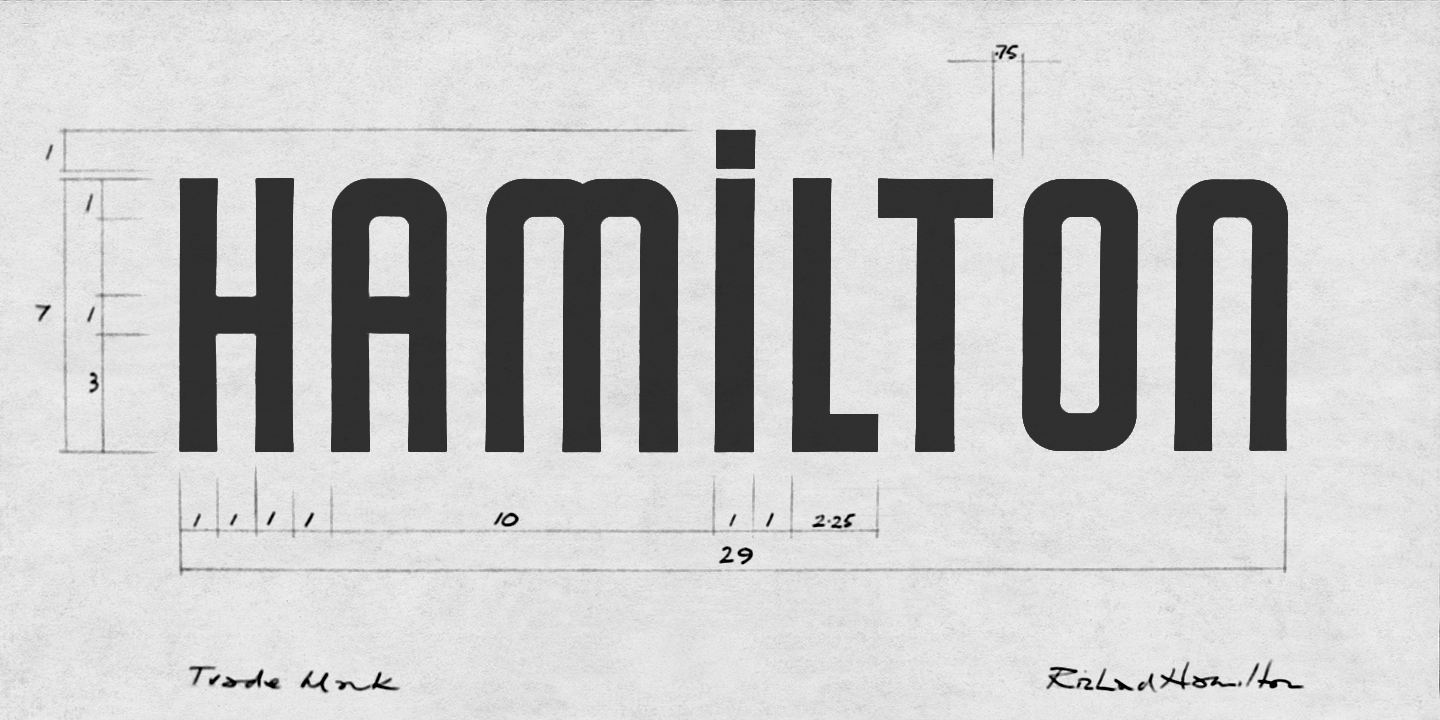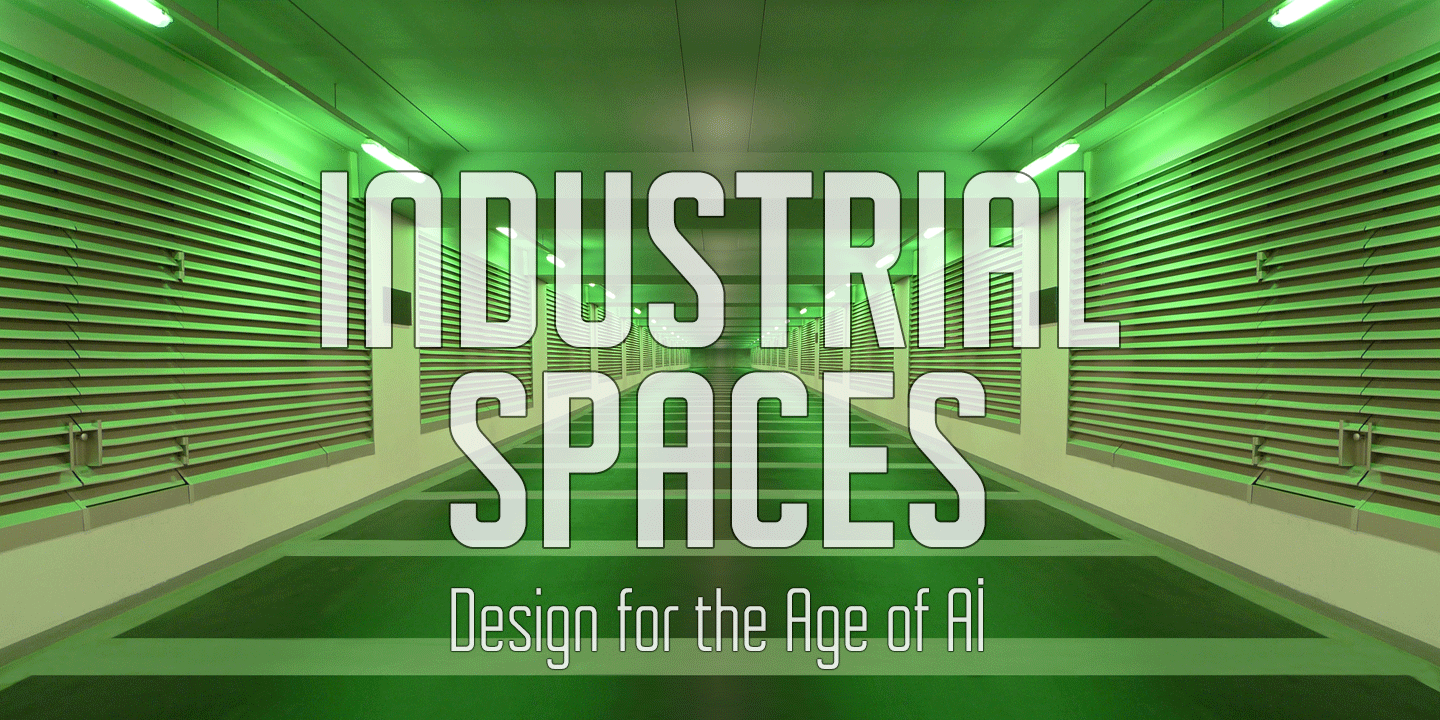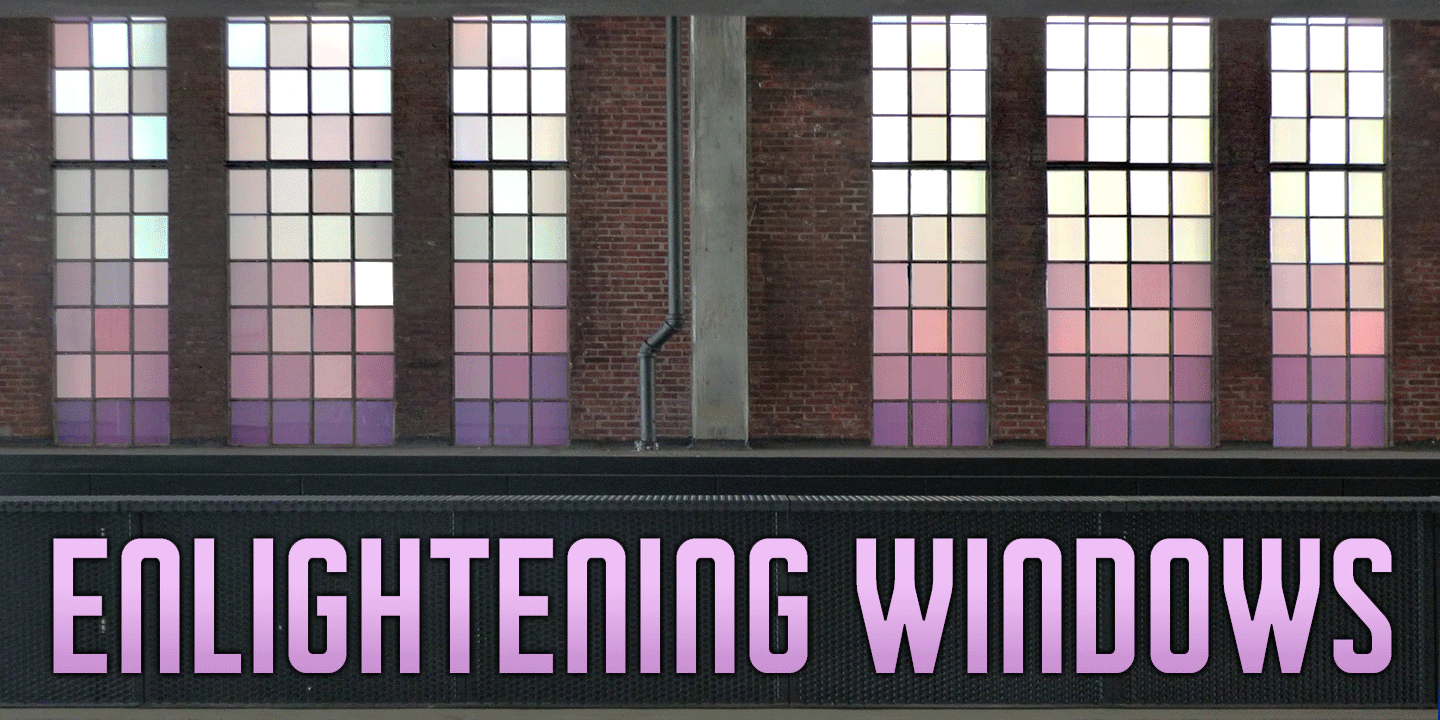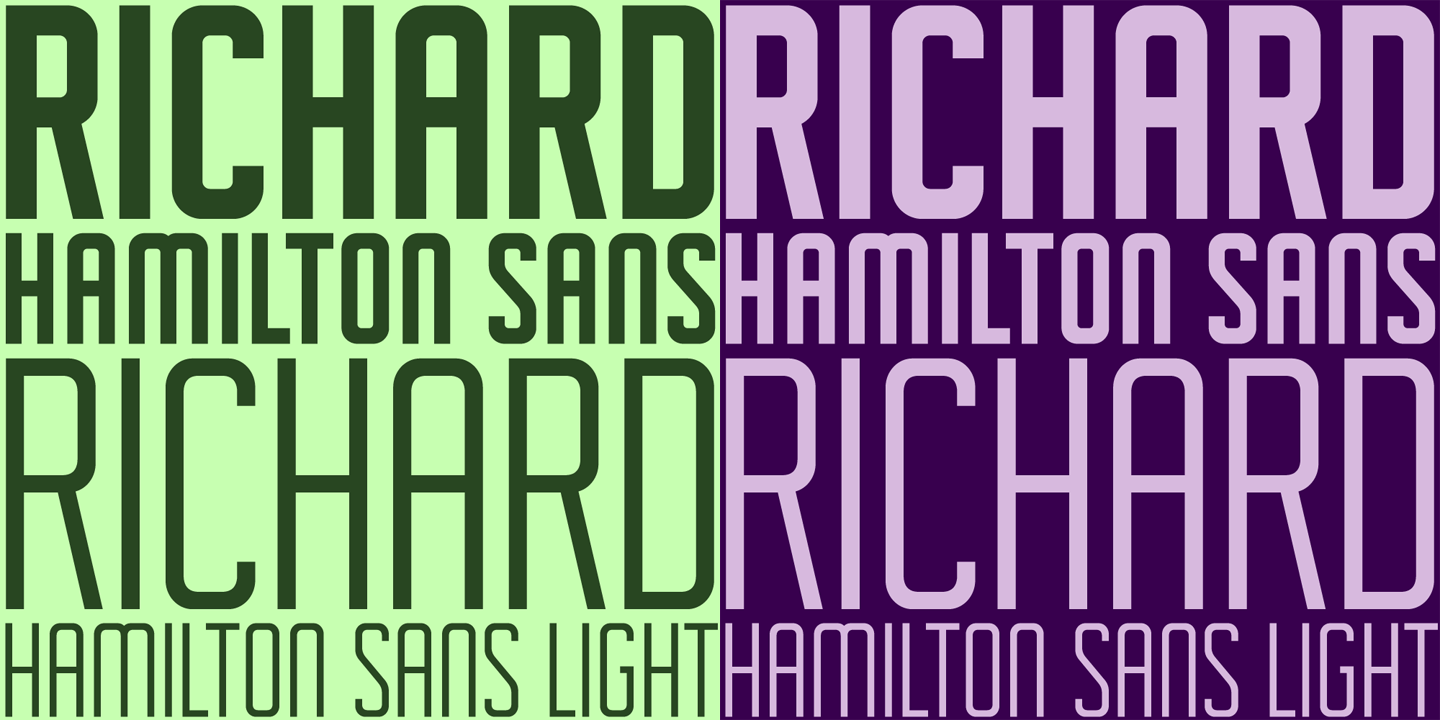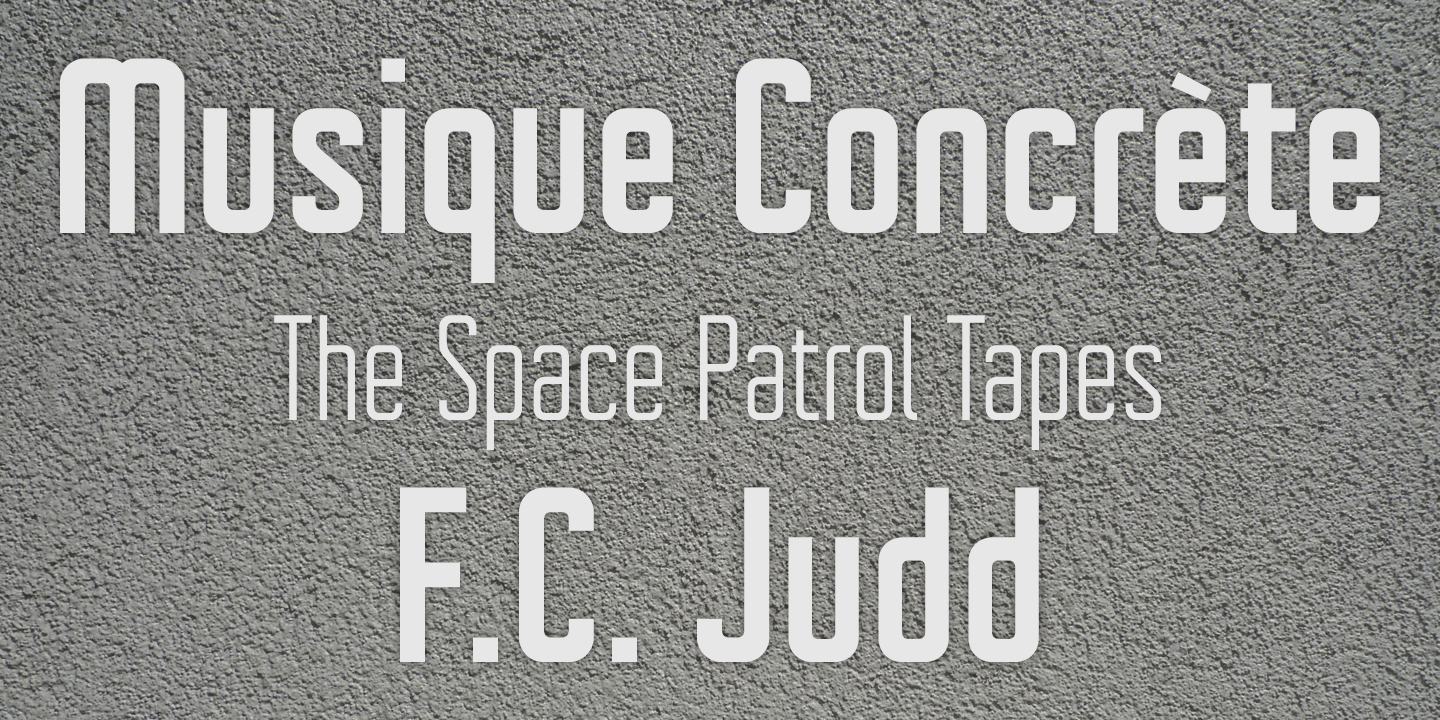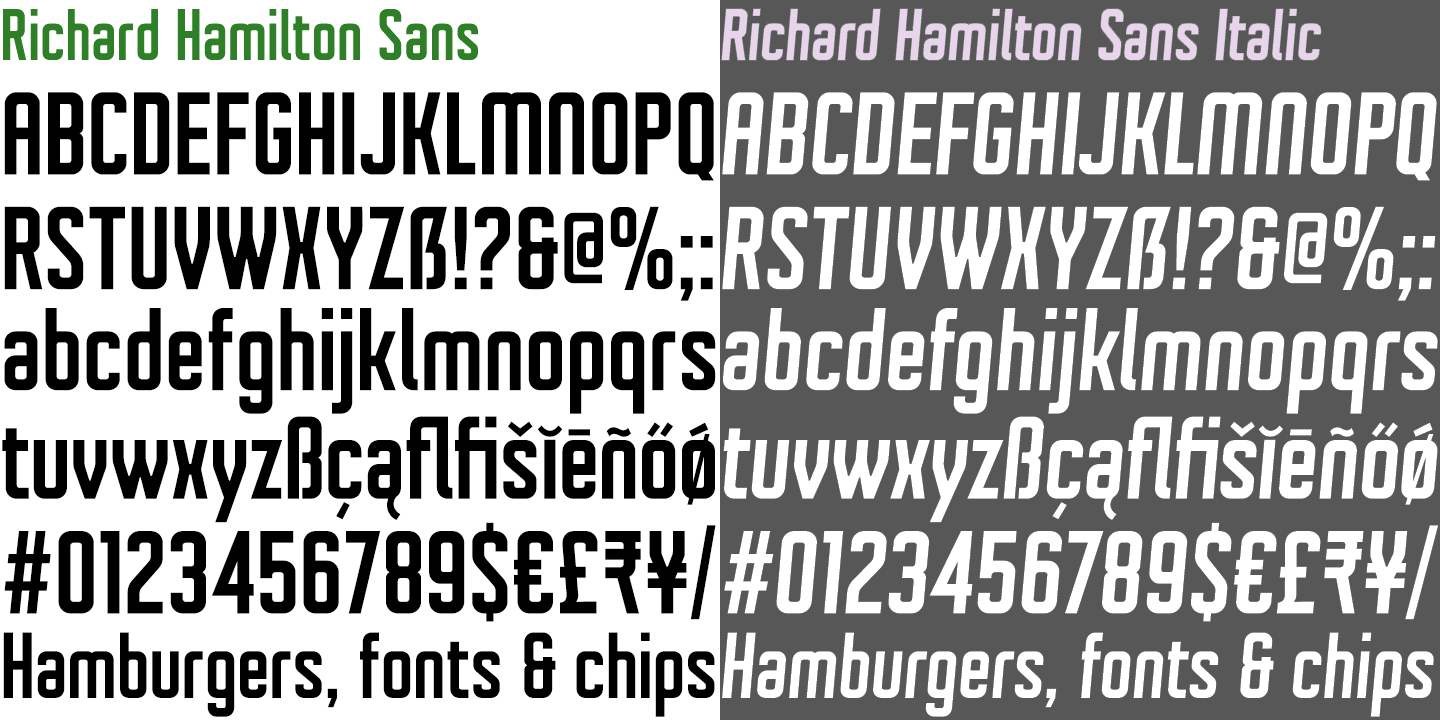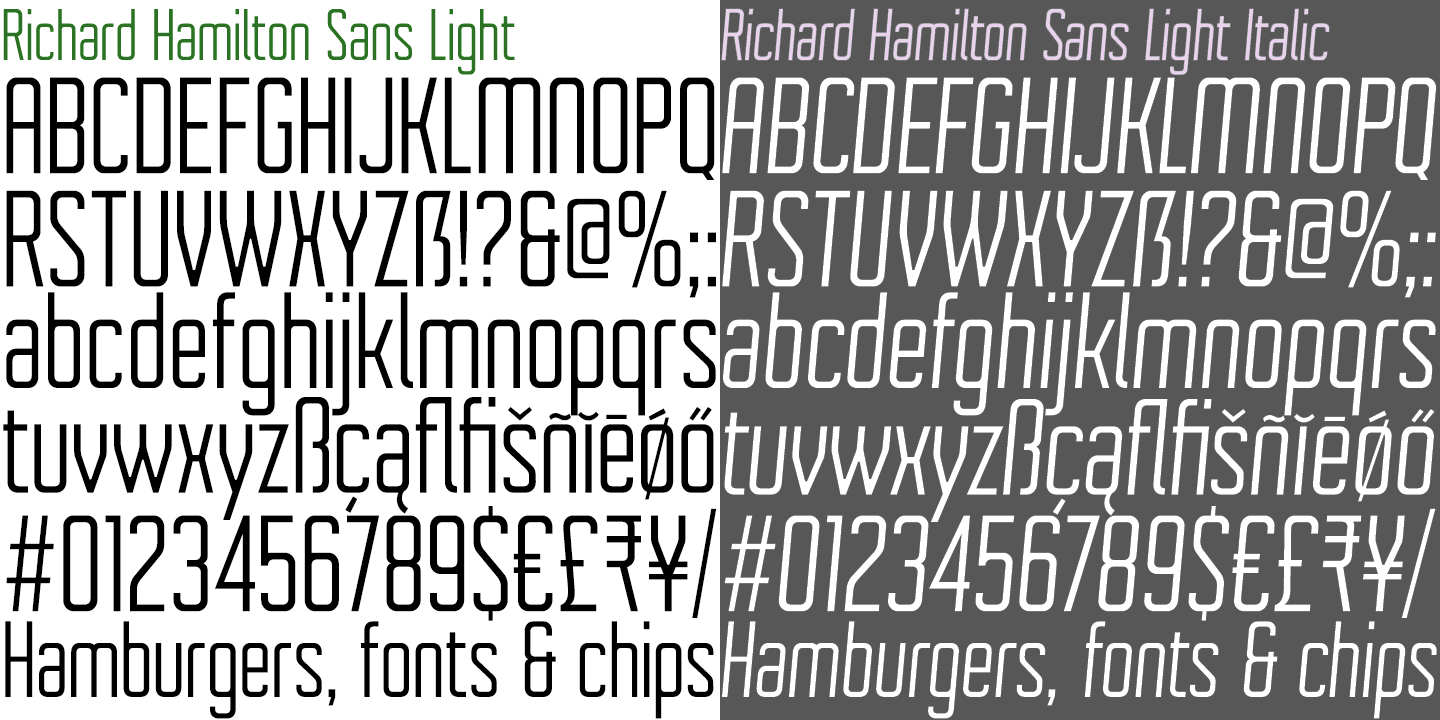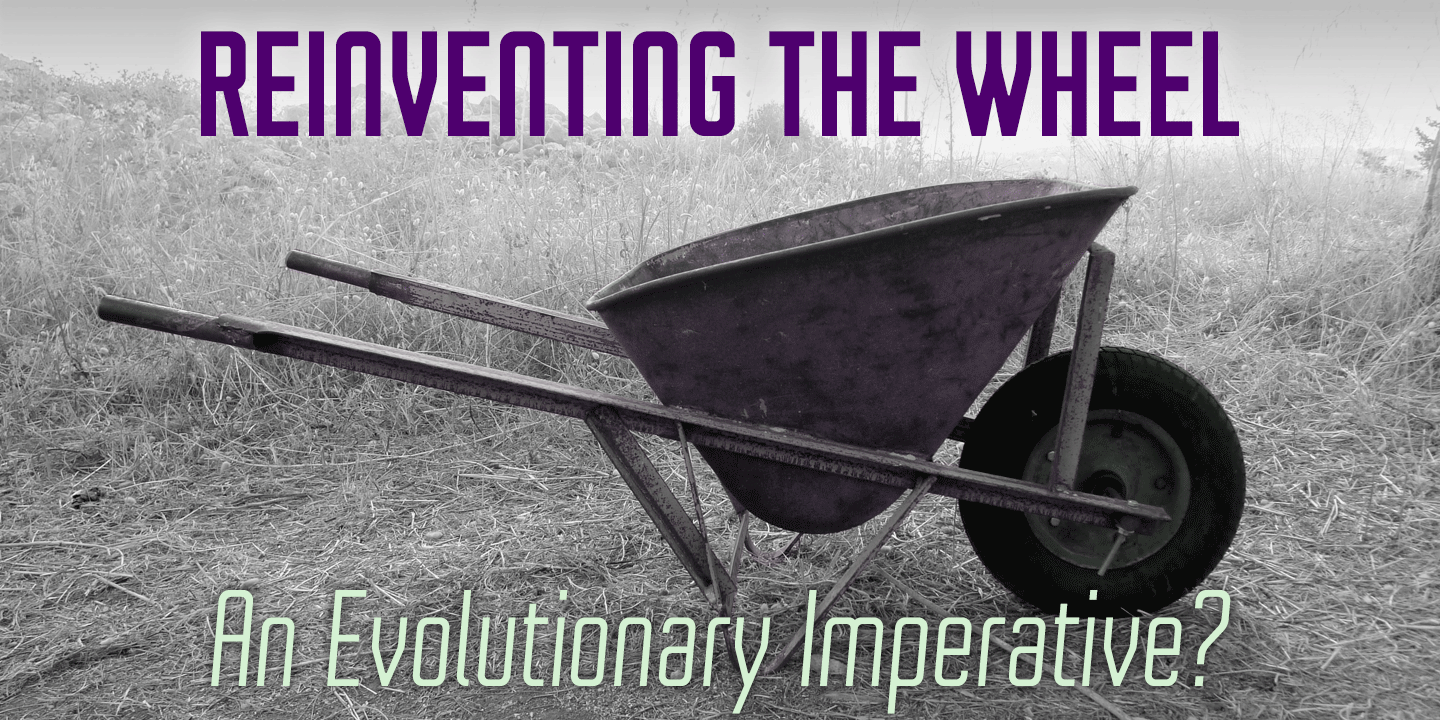
Richard Hamilton Sans
The Richard Hamilton Sans typeface evolved from the ‘Hamilton’ trademark designed by Richard Hamilton in 1972. Regarded as ‘the Father of Pop Art’, Hamilton’s work transcended the boundaries of fine art, graphic design, illustration and product design.
The thickset Richard Hamilton Sans is the regular weight, and the licensed typeface also includes the Light weight, Italic and Light Italic (optically corrected obliques). Each font contains a full complement of Latin Extended-A characters.